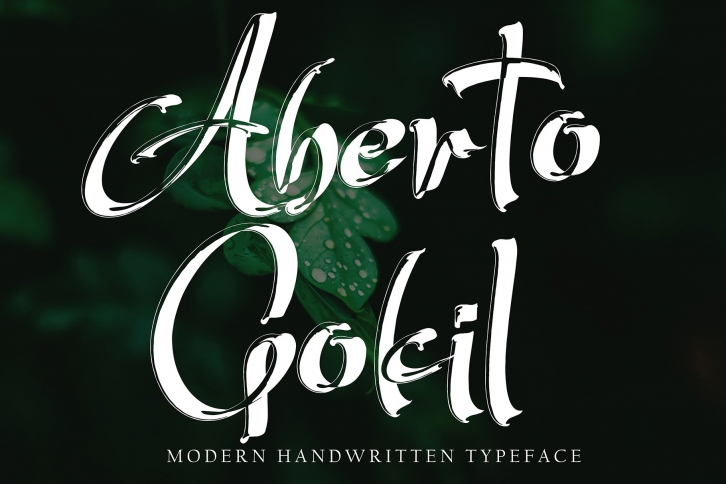
AbertoGokil is a trendy and unique font with an authentic style. It was designed by Pineungtype and it's a great choice for creative people who need such a font. It was released on August 9, 2022 and the file size is 2.87 MB. AbertoGokil will add an organic vibe to any design idea!